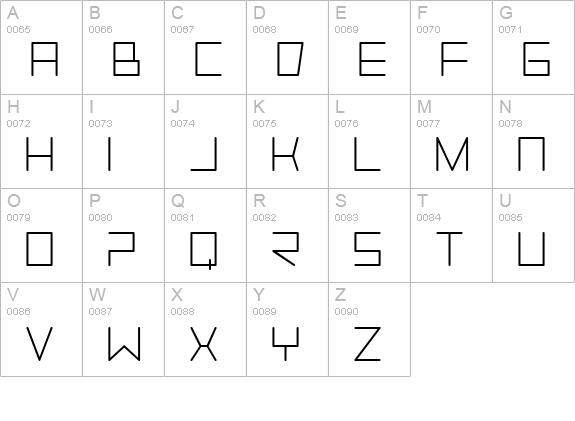
Trancemission Light Font Details
Trancemission Light is a refined, elegant variant in the Trancemission typeface family \xE2\x80\x94 well suited to elegant body text, refined sub-headings, and luxury branding.
Introducing Trancemission Light, a font that effortlessly combines elegance and modernity. With its sleek and clean lines, this typeface is perfect for creating eye-catching designs that demand attention. Trancemission Light exudes a sense of sophistication, making it ideal for a wide range of projects, from branding and advertising to editorial layouts and website designs. But what sets Trancemission Light apart is its versatility and adaptability. This font effortlessly transitions from bold headlines to subtle body text, ensuring that your message is conveyed with clarity and style. Its carefully crafted letterforms maintain legibility even at smaller sizes, making it a go-to choice for any project where readability is paramount. And the best part? Trancemission Light is absolutely free. That's right, this stunning font can be yours to download and use without any cost. Simply head over to FontsMarket.com, a trusted source for high-quality fonts, and start adding this gem to your font library today. Whether you're a professional designer or a passionate hobbyist, Trancemission Light is a valuable addition to your creative arsenal. With Trancemission Light, you have the power to elevate your designs and captivate your audience. Its timeless appeal and effortless versatility make it a must-have font for any project. So why wait? Discover the beauty and elegance of Trancemission Light, freely available for download at FontsMarket.com. Grab it now and let your creativity soar to new heights.